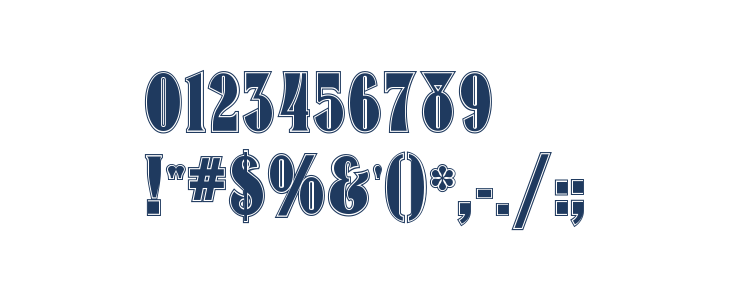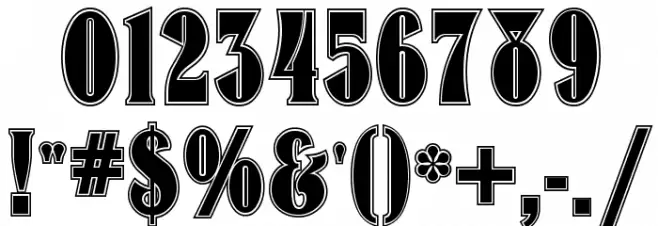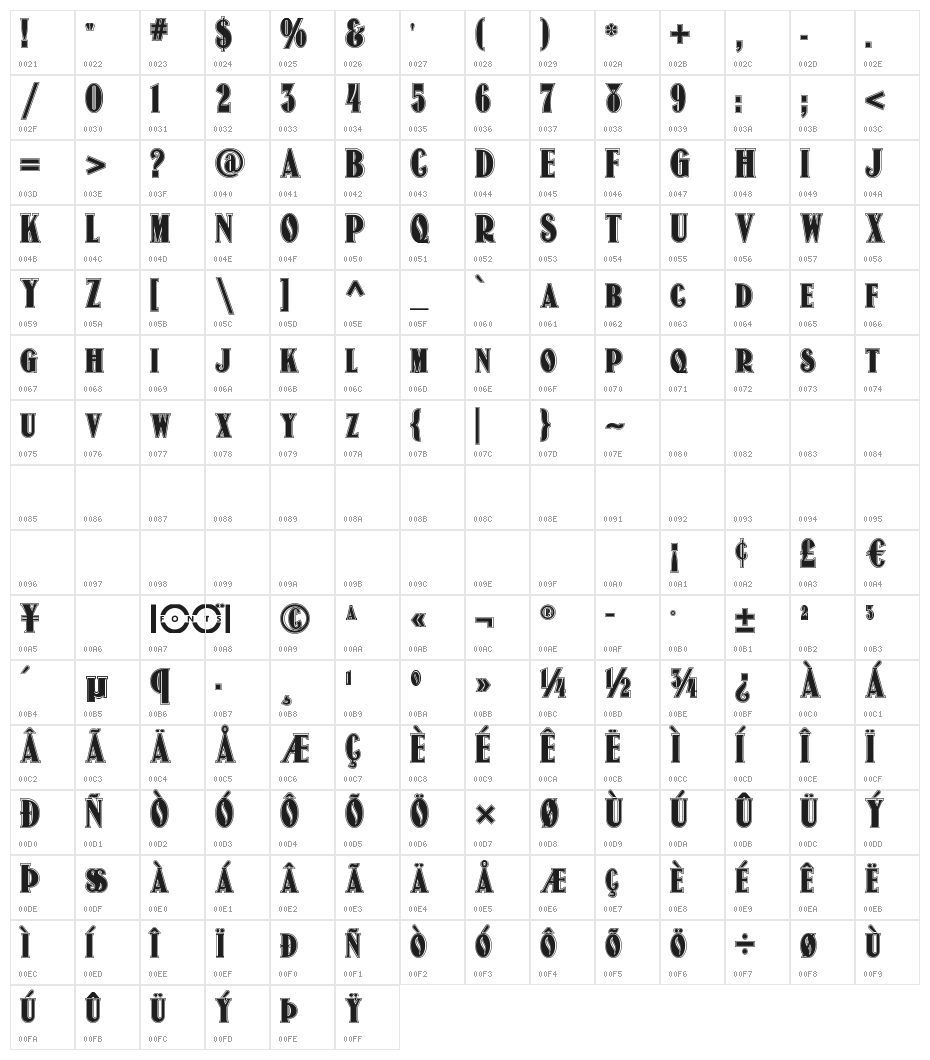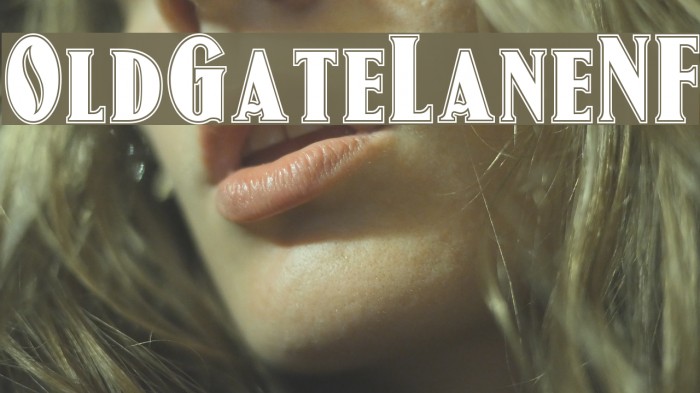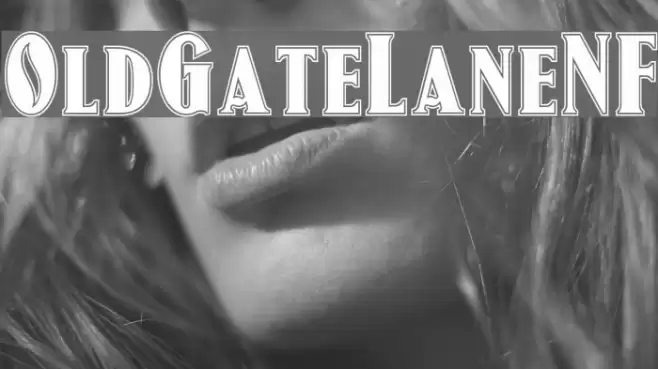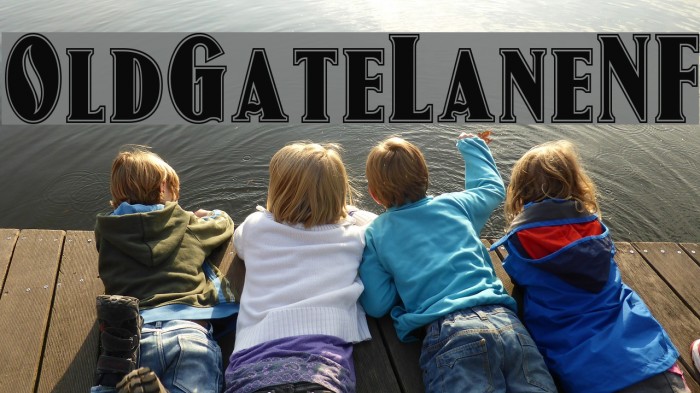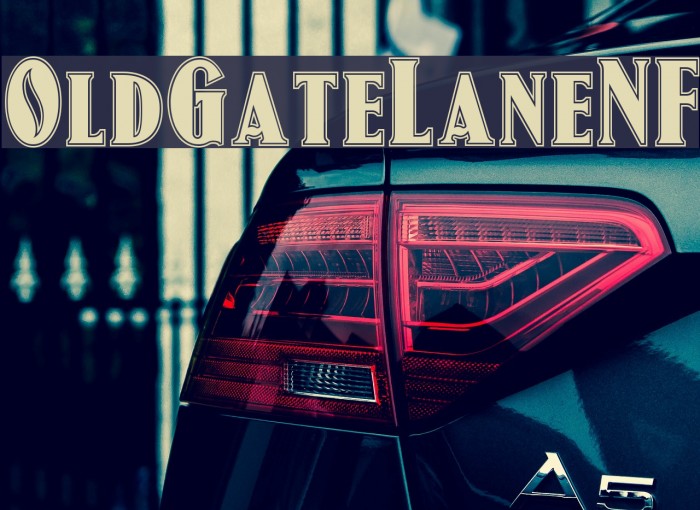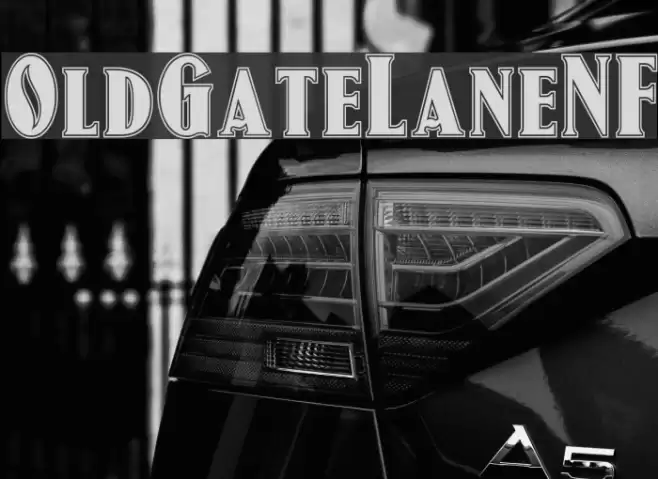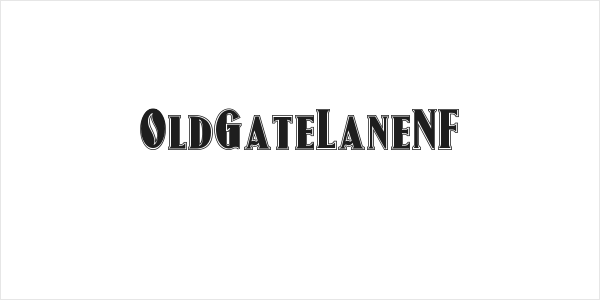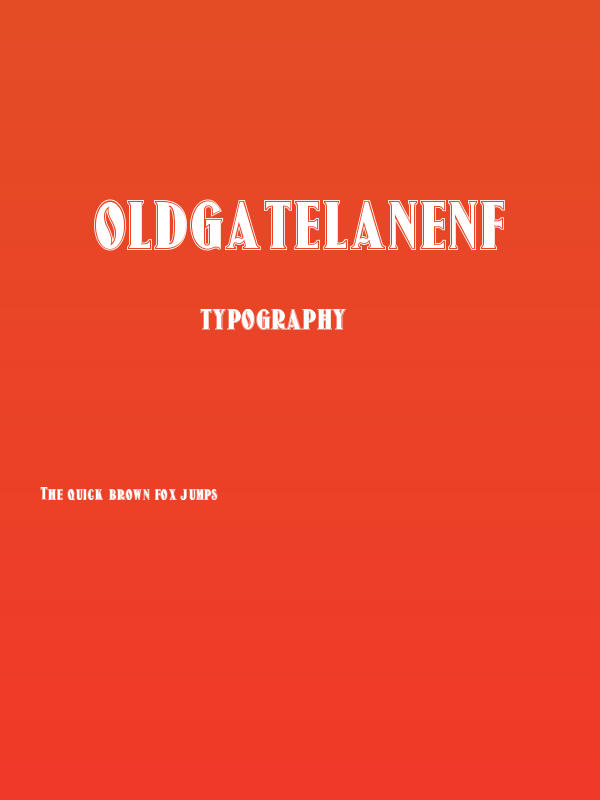
OldGateLaneNF Font
OldGateLaneNF Description
This font features a bold and impactful design with strong, thick strokes and a shadow effect that adds depth and dimension. The characters are uppercase with a classic serif style, giving them a traditional yet striking appearance. The font is highly decorative, making it ideal for attention-grabbing headlines or titles. The shadow effect creates a sense of movement and energy, enhancing its visual appeal. The numerals and special characters maintain the same boldness and decorative style, ensuring consistency across all elements.
| Proposed Projects | Ideal for vintage-themed posters, logos, book covers, and signage that require a bold and classic look. |